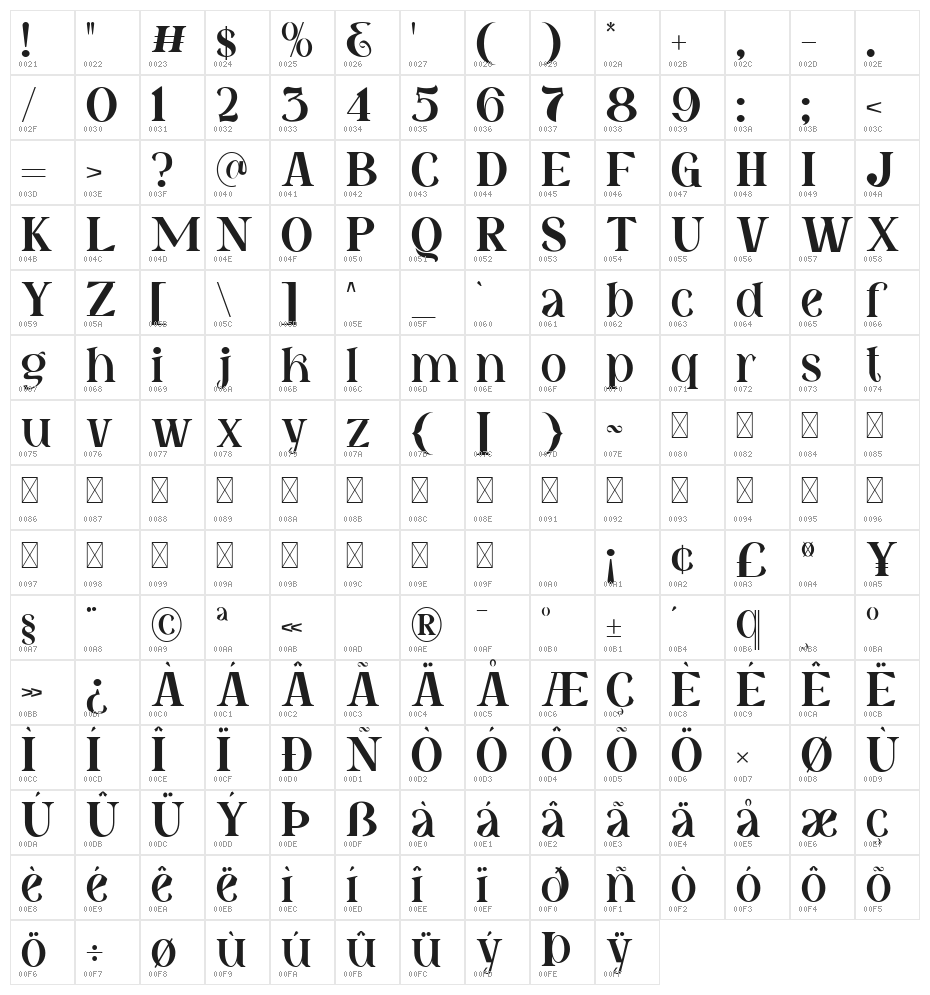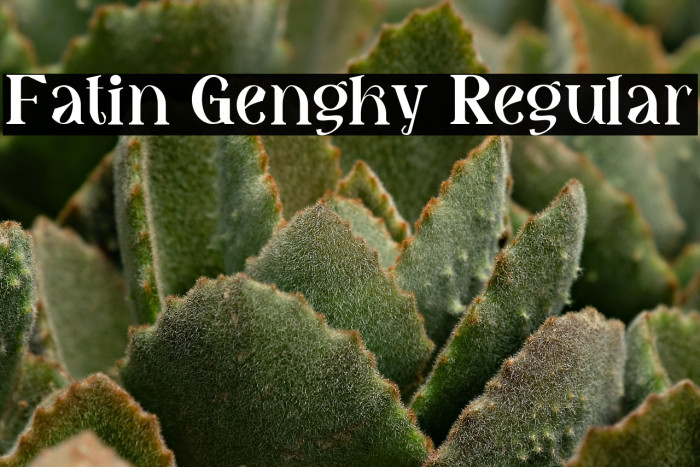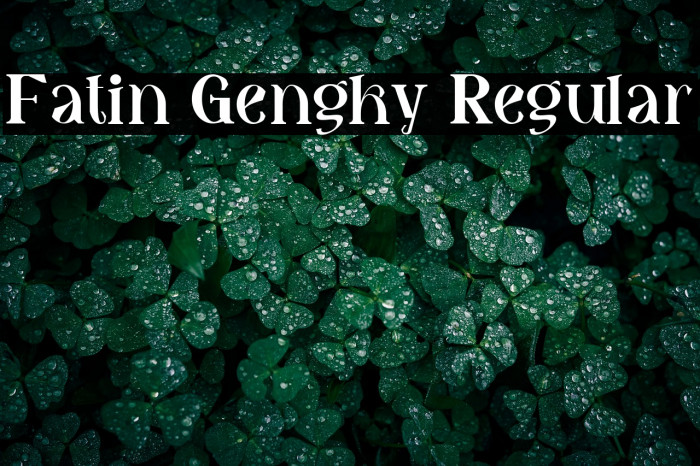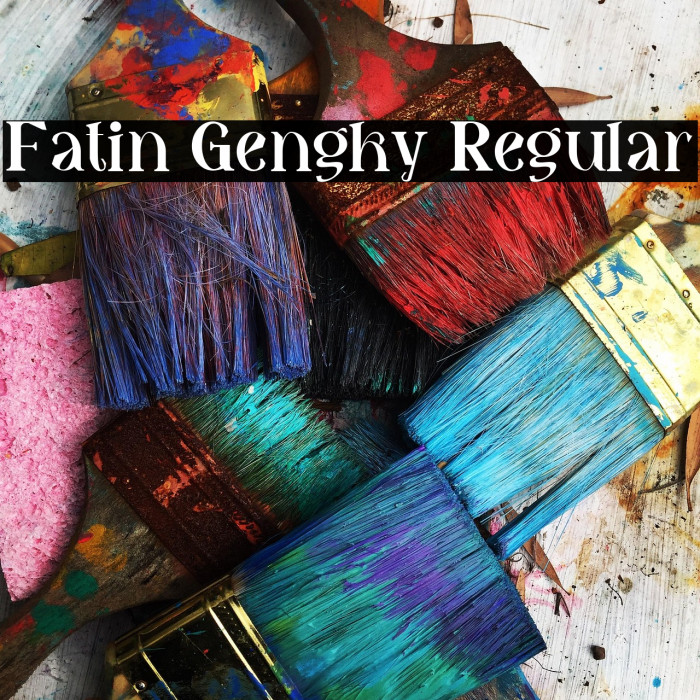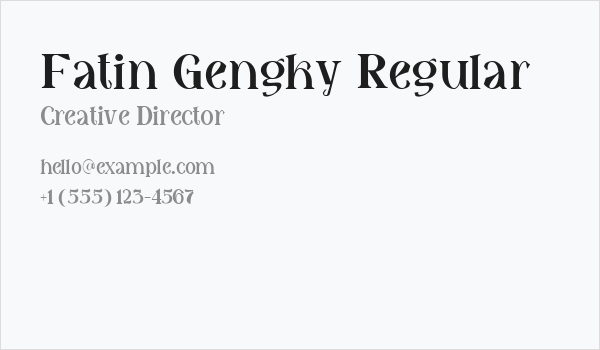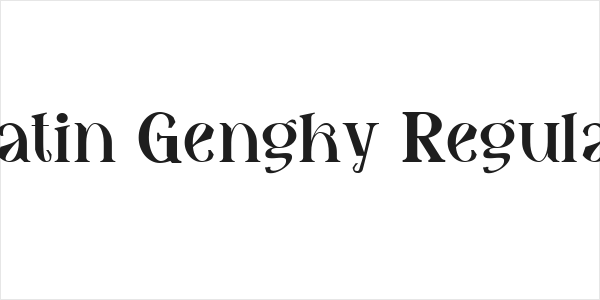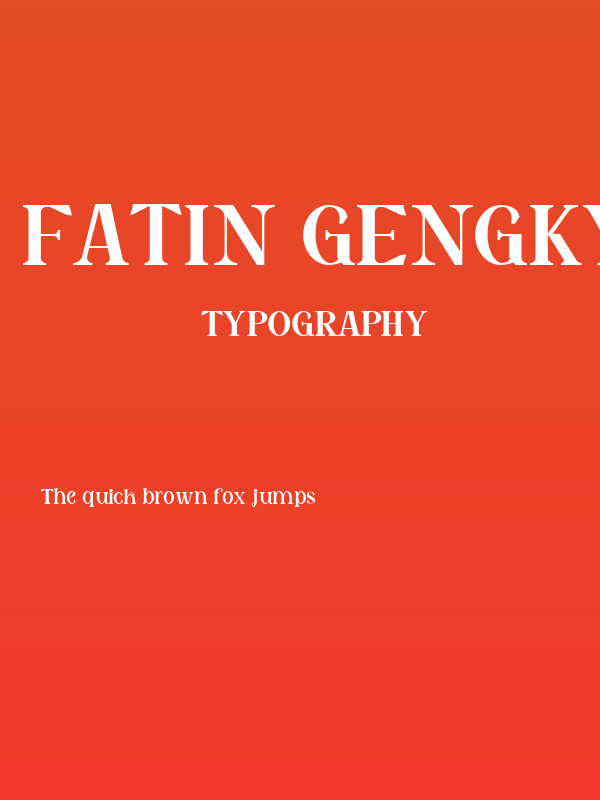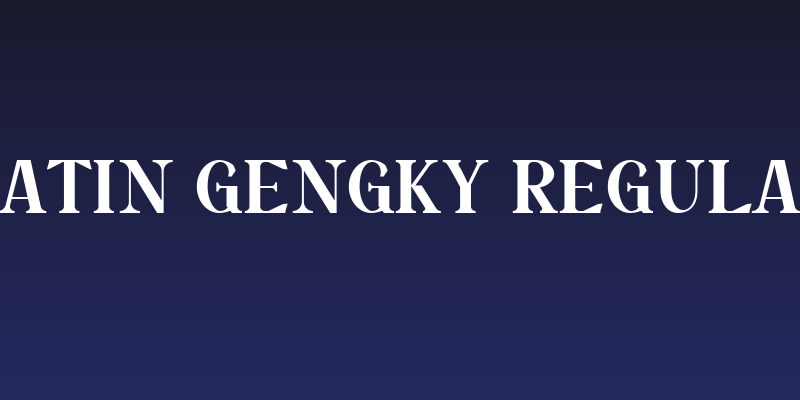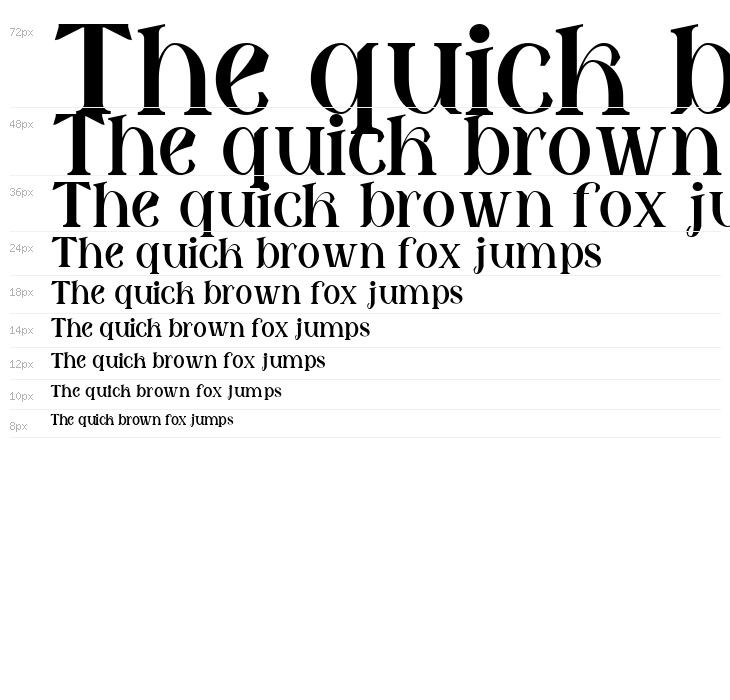
Fatin Gengky Regular Font
Fatin Gengky Regular Description
This font features a distinctive blend of classic and modern elements, characterized by its elegant curves and sharp serifs. The uppercase letters exhibit a bold presence with a slight flair, while the lowercase letters maintain a consistent flow with unique, artistic touches. The numerals are robust and easily readable, complementing the overall style. Special characters are designed with creativity, adding to the font's versatility. The font's design is both decorative and functional, making it suitable for a variety of applications.